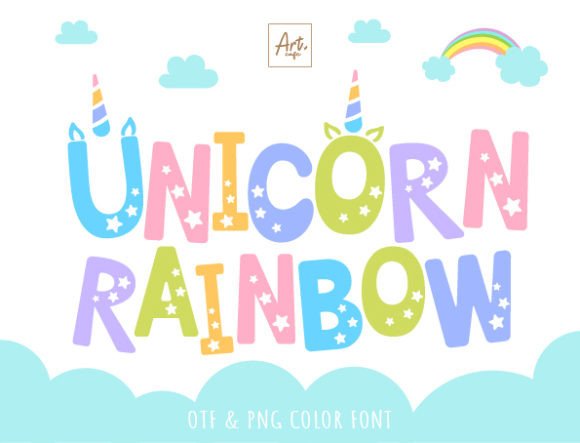
Unicorn Rainbow Font
UNICORN RAINBOW font is cute and suitable for lovely kids. This font is bold, it offers support for all characters of the English language for display font.